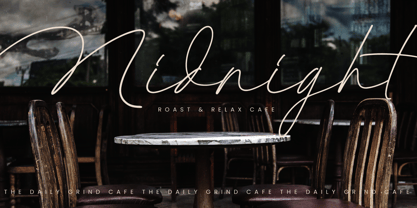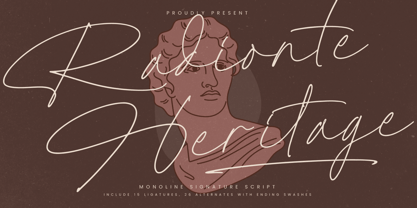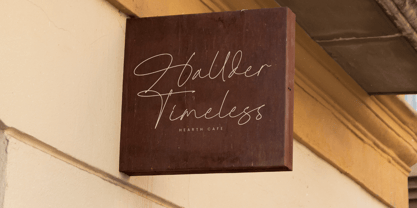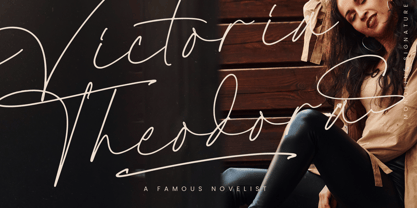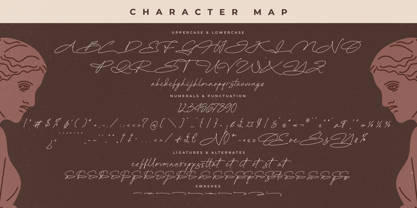
Radionte Heritage
by Letterena Studios
The Radionte Heritage Font Family was designed by Heru Utama Putra and published by Letterena Studios. Radionte Heritage contains 2 styles and family package options.
Radionte Heritage is a modern and charming handwritten font that exudes elegance and personality. Its graceful, flowing strokes and sophisticated character make it perfect for upscale invitations, personal branding, and chic editorial designs. Elevate your projects with the refined allure and warmth of this font.